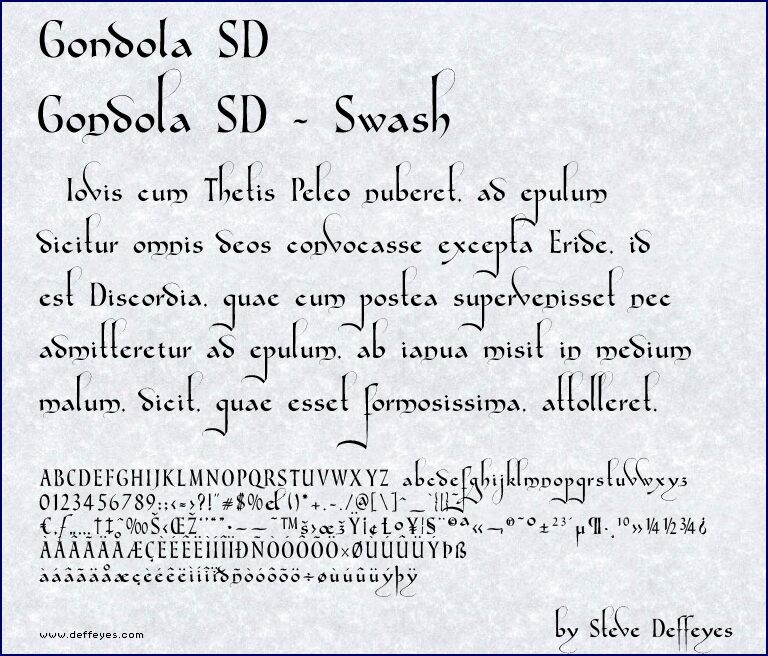
Gondola SD - Swash by Steve Deffeyes is a free calligraphic display font with dramatic thick-thin strokes and broad, rounded letterforms. Its sweeping curves, tapered joins, and long flourishes recall ornate fashion lettering, yet the shapes retain a crisp, sculpted finish.
Luxury packaging is its strongest setting, especially for perfume, cosmetics, or confectionery where the exaggerated curves can become part of a product mark. The same theatrical construction also suits magazine covers, formal invitations, and cabaret posters, with the extended strokes echoing ribbons, borders, or other curved illustration details.
Completed in August 2009. Includes plain and extra-swashy versions.